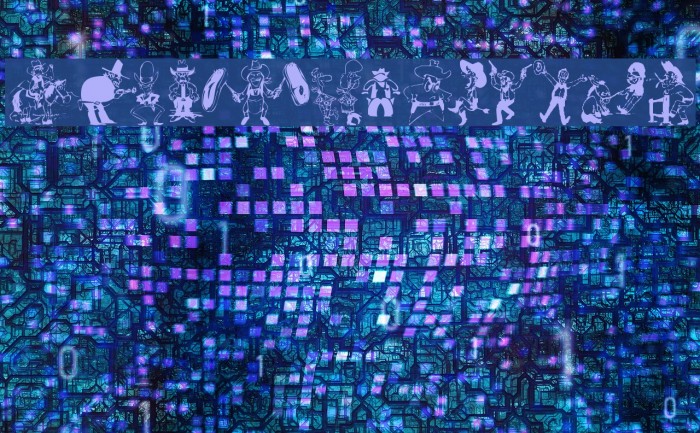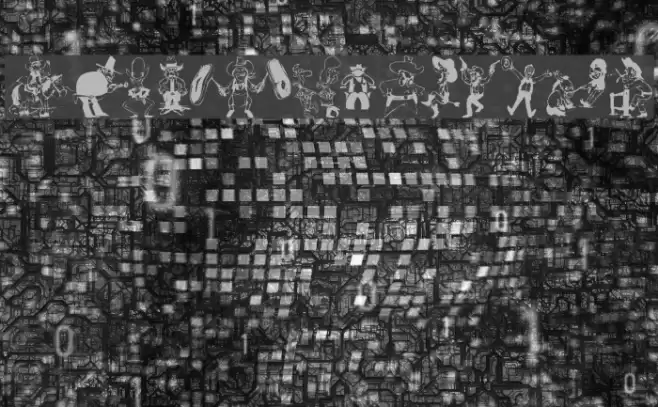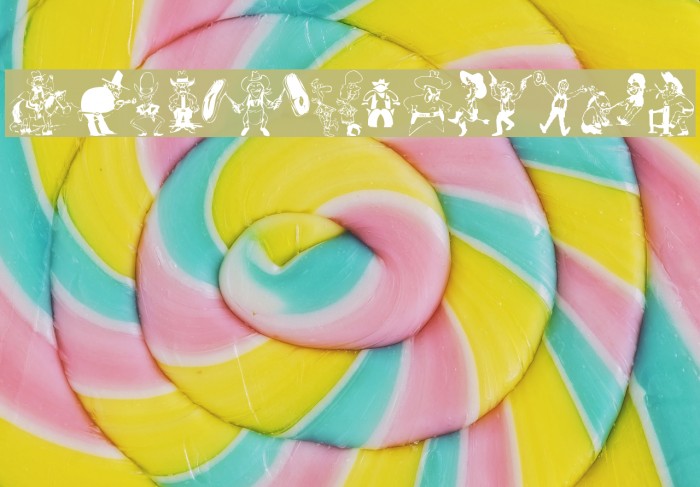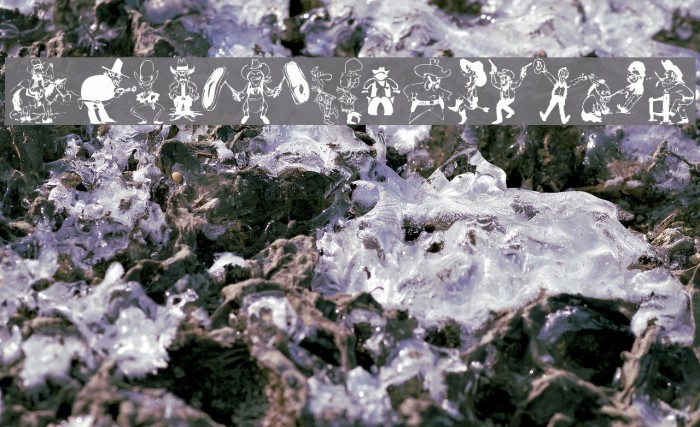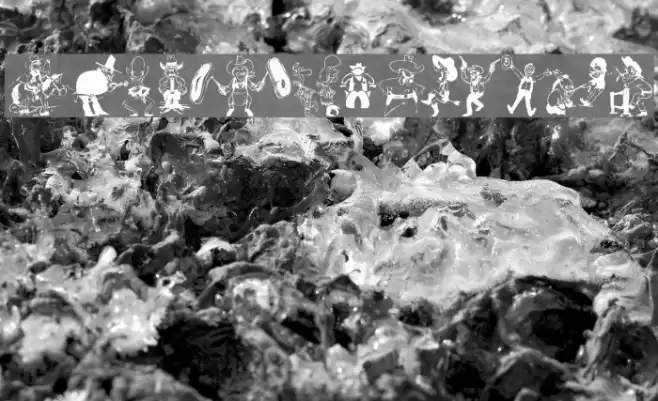
KR Wild West Font
KR Wild West Description
This font is a playful and whimsical typeface that features cartoonish characters with a Wild West theme. Each letter is represented by a unique cowboy or cowgirl figure, adding a lively and entertaining element to the text. The characters are detailed with exaggerated features and dynamic poses, capturing the essence of classic Western cartoons. This font is ideal for projects that require a fun and engaging visual style, particularly those aimed at children or themed around Western motifs.
| Proposed Projects | Ideal for children's books, themed party invitations, or Western-themed event posters. |